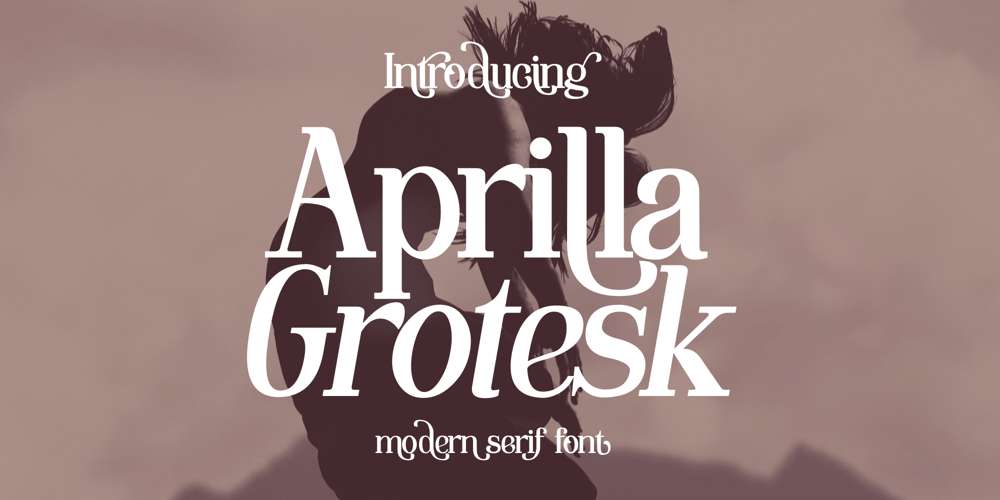
Aprilla Grotesk Font Family was designed by Zamjump and published by Zamjump. Aprilla Grotesk contains 2 styles and family package options. Aprilla Grotesk is a modern serif font packed with alternatives and binders, helping you create logos, quotes, posts, social media posts, branding projects, magazine covers, book writing, and more.· Works on PC & Mac· Multilingual support· Ligature· Alternate Fully accessible without additional design software Accessible in Adobe Illustrator, Adobe Photoshop, and Microsoft Word. I really hope that you will have fun using the Aprilla Grotesk font and that it will make a perfect addition to your font collection! Contact me with an inbox message if you have any questions. Thank You!